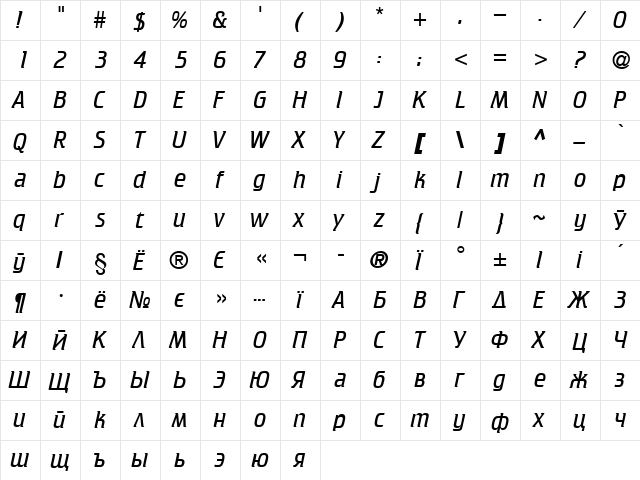
font128 Normal
Design Context for font128 Typeface
font128 is a composed and adaptable typeface that performs quietly and consistently across a wide range of design contexts.